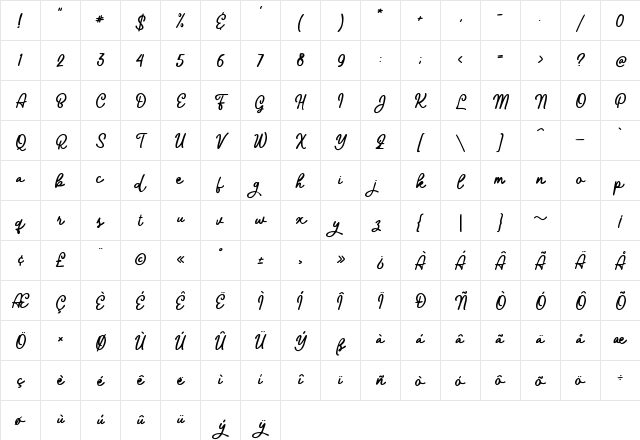
Azzura Lineweight Regular
Foundry: Colllab Studio
Designer: Colllab Studio
Design Context for Azzura Lineweight
Azzura Lineweight is a composed and adaptable typeface that performs quietly and consistently across a wide range of design contexts.